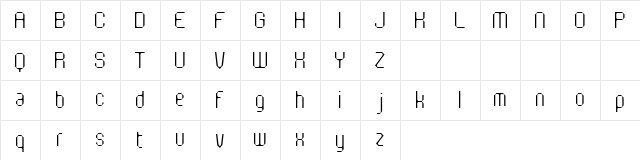
Fax Print Regular
Design Context for Fax Print Typeface
Fax Print takes a measured approach to typography — its balanced proportions and neutral character make it a reliable workhorse for both digital and print work.